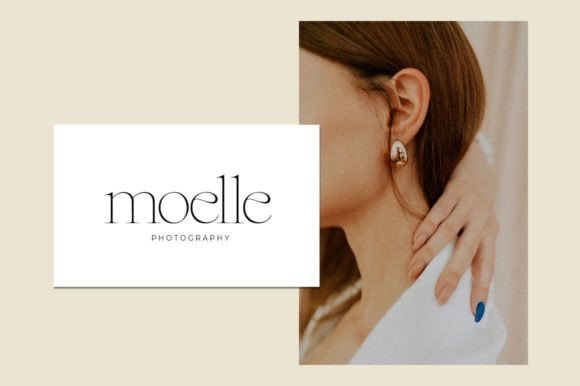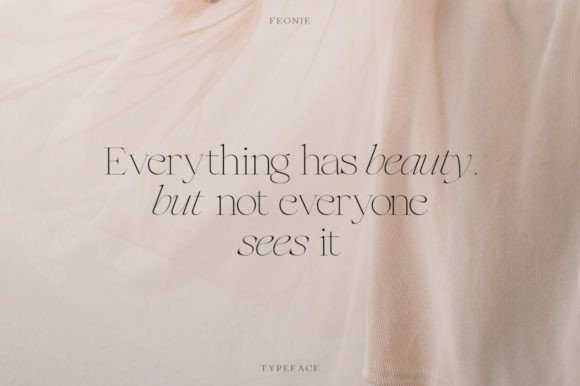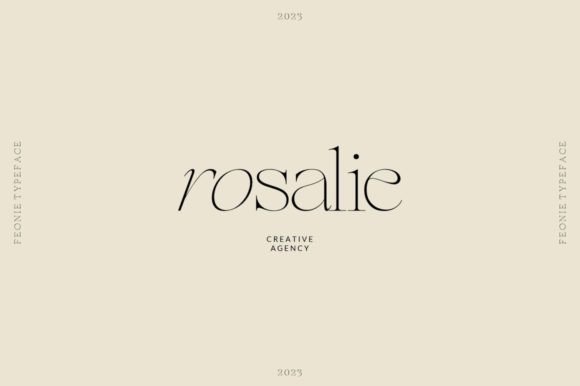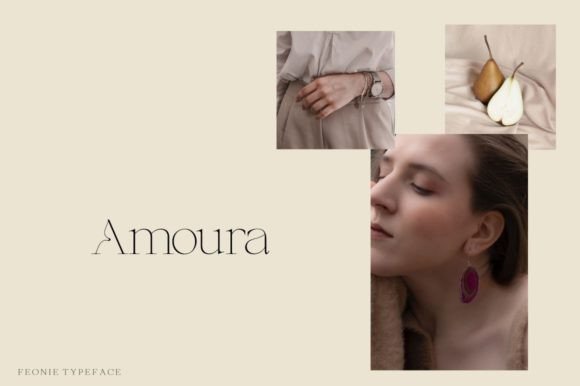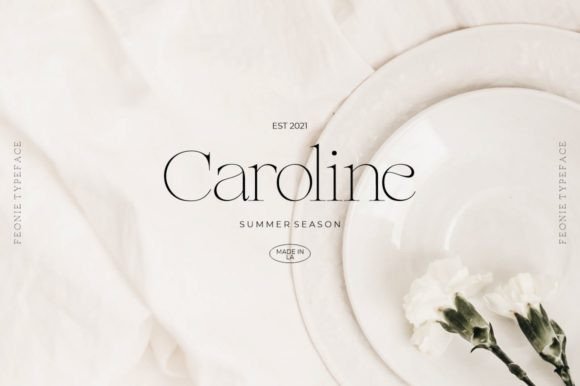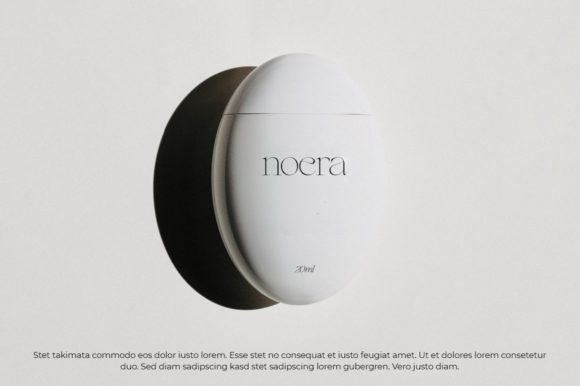
Introduction to Feonie Font
Feonie is a sophisticated, charming serif font with a fashionable touch.
Specially designed for luxury, elegant, feminine projects, this font is perfectly suitable for creating modern, chic designs .
Key Features of Feonie Font
Why Choose Feonie Font?
Feonie Font offers exceptional quality and versatility, making it a valuable addition to your design toolkit. Whether you’re creating for personal projects or commercial use, Feonie Font delivers professional results.